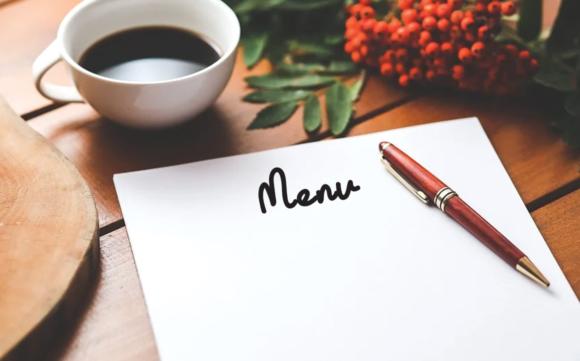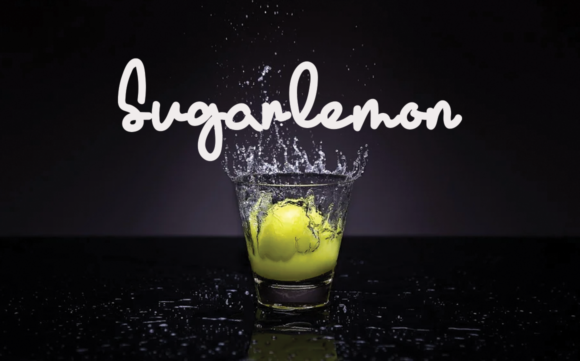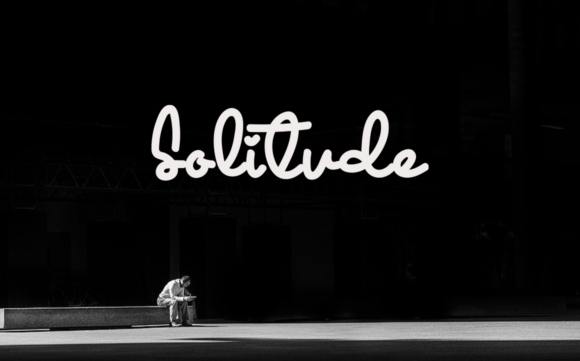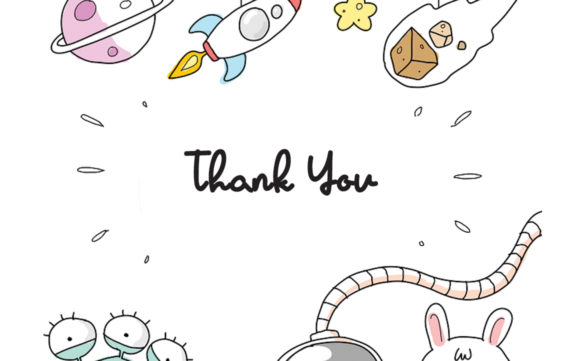
Introduction to Mickey Love Font
Have you ever stumbled upon the perfect font while working on a creative project, and suddenly, your entire design comes together in a beautiful way? That’s exactly what happened to many designers when they discovered the Mickey Love Font.
This unique and friendly handwritten font is a game-changer for designers looking to add a personal touch to their work. Whether you’re creating a beautiful logo, designing a wedding invitation, or crafting a social media post, Mickey Love Font is sure to elevate your design to the next level. With its high-quality and versatile design, it’s no wonder why this font has become a valuable resource for designers of all levels.
Key Features of Mickey Love Font
- Unique Hand-Drawn Design: The Mickey Love Font features a hand-drawn design with a touch of whimsy, making it perfect for creative projects.
Honest Review: Mickey Love Font
As a designer, I’m always on the lookout for unique and high-quality fonts to add a touch of personality to my creative projects. The Mickey Love Font caught my attention, and I was excited to give it a try. Here’s my honest review.
- ✨ The font is a great addition to any project that requires a playful and whimsical touch.
- ✨ The high-quality design ensures that the font looks great on any background, including a transparent background.
- ⚠️ The font is quite bold, which may not be suitable for all projects, especially those that require a more subtle design.
- ⚠️ It may not be the best choice for projects that require a lot of text, as it can be overwhelming.
Overall, I think the Mickey Love Font is a great design resource for designers who are looking for a unique and playful font. While it may have some limitations, it’s a great addition to any creative project. Just be sure to use it thoughtfully and in moderation.
Alternatives to Mickey Love Font
Great Vibes Font is a beautiful, handwritten font perfect for creative projects that require a touch of elegance and sophistication. It’s ideal for use on a transparent background to create a stunning visual effect. Great Vibes Font is available for free download, making it an excellent design resource for designers on a budget.
Compared to Mickey Love Font, Great Vibes Font has a more refined and polished look, making it suitable for high-end creative projects. It’s a great alternative for designers who want to add a touch of luxury to their designs.
Alex Brush Font is a high-quality, handwritten font that’s perfect for use in creative projects that require a personal and intimate touch. It’s a great design resource for designers who want to add a touch of warmth and personality to their designs. Alex Brush Font is available for free download, making it an excellent choice for designers on a budget.